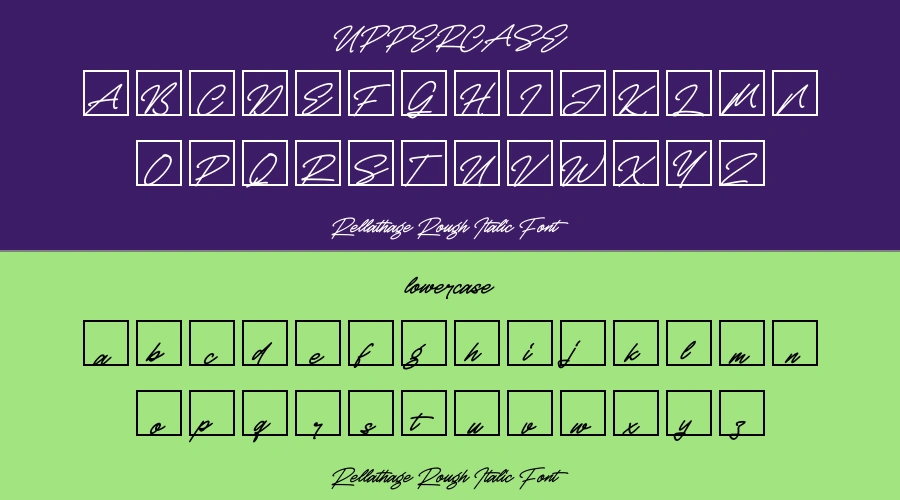
About Rellathage Rough Italic Font
Rellathage Rough Italic Font embodies typographic excellence through its masterful combination of subtle details and adaptability. Created for logo design, this typeface delivers exceptional functionality and craft excellence across all applications. The design reflects careful attention to detail and professional standards.
Advanced capabilities include distinctive rounded corners and versatile connecting forms, giving designers creative control. When used in compliance materials, Rellathage Rough Italic Font exhibits remarkable texture integration. The harmonious balance between crossbar height and market position sets this typeface apart.